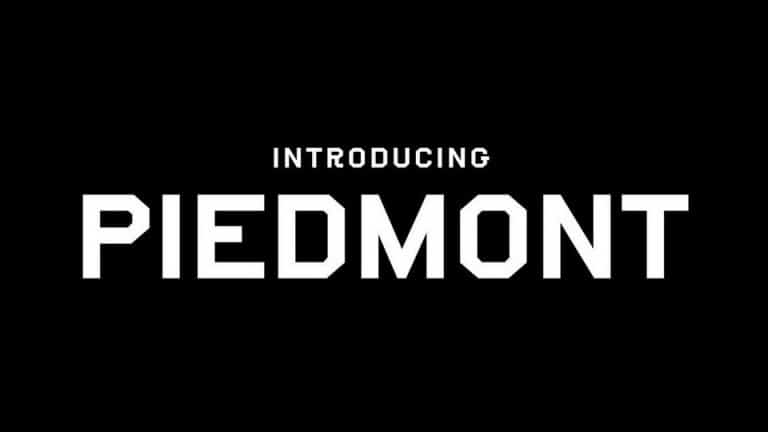
Piedmont Display Sans Font eye-catching display sans-serif font, that comes in two weights, uppercase and lowercase characters and is packed full of alternates and ligatures to create great variety in your designs. Piedmont is designed and shared by Brandon Nickerson.
This font is a bold hybrid “Block” style display typeface inspired by athletic fonts and industrial typography. Piedmont is great for big and bold headlines, logos or small supplemental type. This font is free for personal and commercial use.